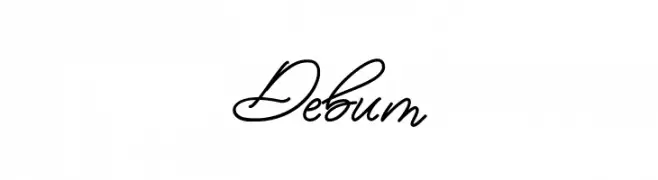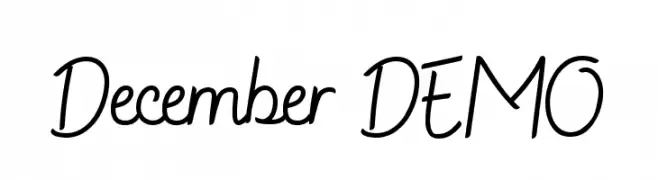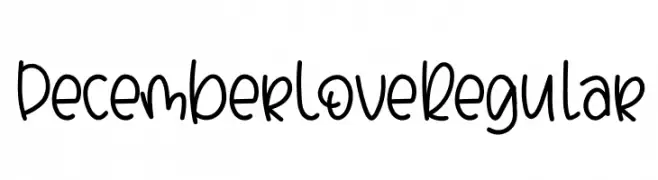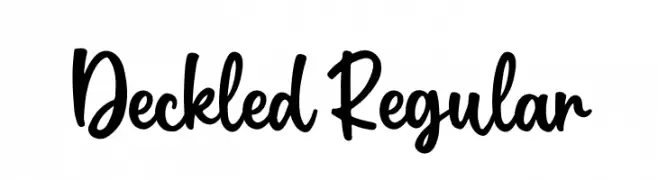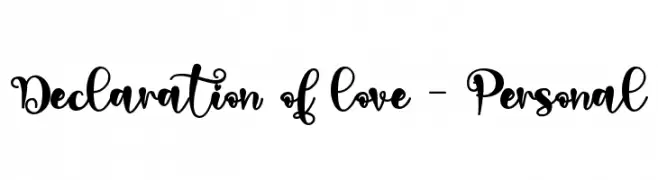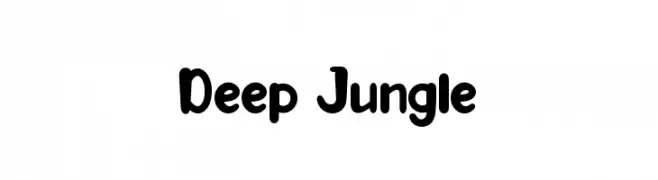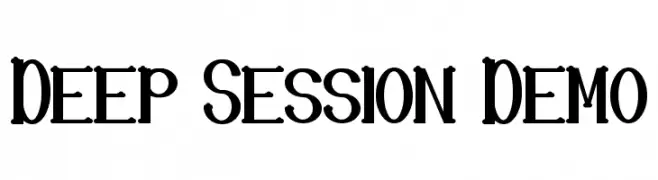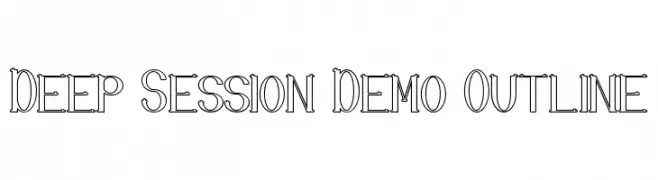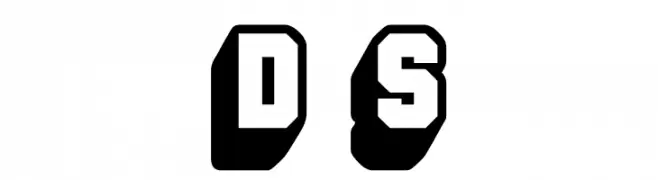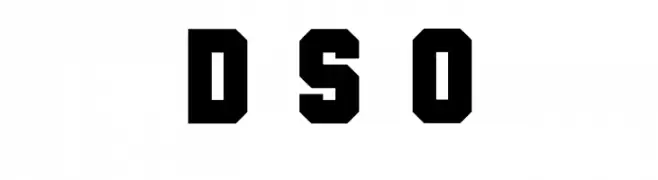
A graceful script font with fluid, connected strokes and elegant curves.
A dynamic handwritten font with elegant, flowing cursive strokes.
A playful, handwritten font with smooth curves and a casual style.
A playful, hand-drawn script font with bold, rounded characters.
A playful, romantic script font with whimsical flourishes and heart motifs.
A playful, bold font with rounded, thick strokes and a whimsical touch.
A playful, bold font with exaggerated serifs and a whimsical style.
A decorative outline font with a modern and playful aesthetic.
A bold, three-dimensional font with deep shadow effects for standout text.
A bold, shadowed font with a modern, geometric style.